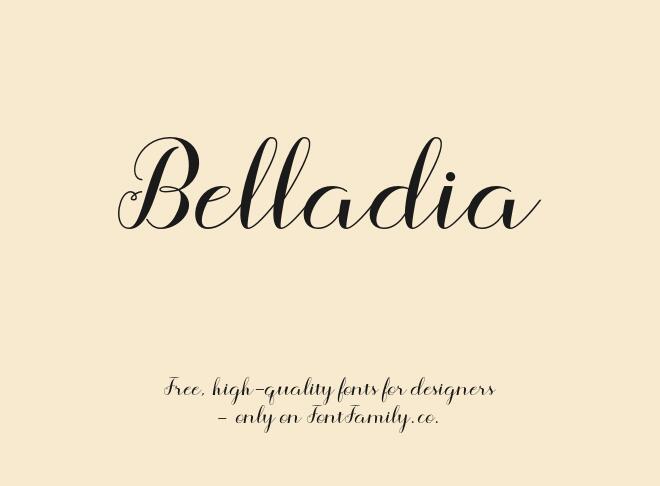
Belladia Font
Belladia Font is an elegant script typeface meticulously crafted by Creative Fonts Studio. With its fluid and handwritten style, Belladia offers a touch of sophistication to any design project. The font features a beautiful balance of casual and classy, making it perfect for a wide range of applications from wedding invitations to personal branding and everything in between. Belladia Font is reminiscent of classic calligraphy, yet it brings a modern twist that sets it apart in the digital era. It's more than just a typeface; it's a tool that empowers designers with the ability to create stunning visuals that leave a lasting impression. Its versatility and distinct style make Belladia Font a must-have for designers looking to enhance their creative repertoire.